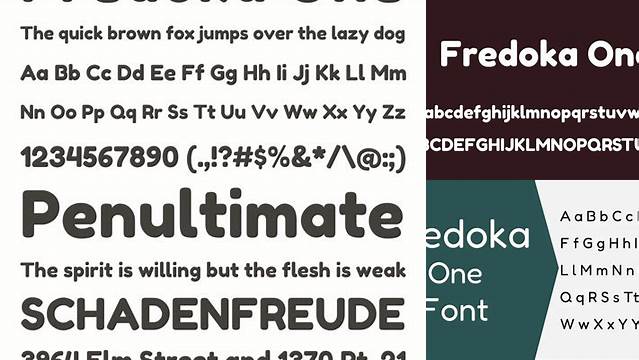
Fredoka One: Google Fonts Guide & Specimen Insights
Hey guys! Ever stumbled upon a font that just makes you smile? Well, let me introduce you to Fredoka One! This Google Font is like that super friendly neighbor who always brings sunshine to the block. In this guide, we're diving deep into everything Fredoka One – from its quirky design to how you can use it to spice up your projects. So, buckle up and let's get font-tastic!
What is Fredoka One?
So, what exactly is Fredoka One? It's a playful, rounded sans-serif font designed by Milena Brandão. Think of it as the font equivalent of a bouncy castle – fun, approachable, and full of energy. Fredoka One is part of the Google Fonts library, which means it's free to use for personal and commercial projects. How cool is that? Its bubbly appearance makes it perfect for headlines, posters, and anything that needs a touch of whimsy. Imagine using Fredoka One for a children's book, a party invitation, or even a website header. It’s versatile enough to fit a wide range of design needs, and its distinctive style ensures it stands out from the crowd. Plus, its availability on Google Fonts means it's super easy to implement on your website or in your design software. Just a few clicks, and you're ready to roll! But don't just take my word for it – try it out and see for yourself how Fredoka One can transform your projects.
Fredoka One Font Family
The Fredoka One font family is actually a bit of a solo act – it only comes in one weight. But don't let that fool you! This single weight is incredibly versatile. It's bold enough to make a statement in headlines, yet clean enough to be readable in shorter paragraphs. While it would be awesome to have different weights like Fredoka One Light or Fredoka One Bold, the existing version strikes a perfect balance. The lack of additional weights keeps things simple and focused. You don't have to spend time deciding between different options; you can just jump right in and start using it. This simplicity is part of what makes Fredoka One so appealing. It's straightforward and easy to use, making it a great choice for both beginner and experienced designers. However, if you're looking for more variety in weights, you might need to pair Fredoka One with another font that offers those options. But for many projects, the single weight of Fredoka One is more than enough to get the job done. It’s a testament to the font’s design that it can be so effective even without a full family of weights.
Fredoka One Google Fonts Specimen
Alright, let's talk about the Fredoka One Google Fonts specimen. When you head over to Google Fonts, you'll see a preview of Fredoka One in action. This specimen showcases the font's character set, including uppercase and lowercase letters, numbers, and punctuation. It also gives you a feel for how the font looks at different sizes and in different contexts. The specimen is designed to help you quickly assess whether Fredoka One is the right fit for your project. You can type in your own text to see how it looks in the font, which is super handy. Additionally, the Google Fonts specimen provides information about the font's designer, licensing, and usage. It’s a one-stop shop for everything you need to know about Fredoka One. Make sure to take a good look at the specimen before deciding to use the font. It'll give you a clear idea of its strengths and limitations, and help you make an informed decision. Plus, it’s just fun to play around with and see how your favorite words look in this playful font!
How to Use Fredoka One in Your Designs
So, you're digging Fredoka One and want to use it in your designs? Awesome! This font is super versatile, but here are a few tips to get the most out of it. Firstly, think about using Fredoka One for headings and titles. Its bold and playful nature makes it perfect for grabbing attention. However, because it's quite distinctive, it's best to use it sparingly in body text. Pair it with a more neutral sans-serif font like Open Sans or Lato for longer paragraphs to ensure readability. Secondly, consider the color palette. Fredoka One works well with bright, cheerful colors that complement its playful vibe. Think yellows, pinks, and blues. But it can also look great in more muted tones for a retro feel. Thirdly, experiment with letter spacing and line height. A little extra letter spacing can enhance its readability, while adjusting the line height can make it more comfortable to read in headings. Finally, don't be afraid to get creative! Fredoka One is all about fun, so let your imagination run wild. Use it in unexpected ways and see what you come up with. Whether you're designing a website, a poster, or a social media graphic, Fredoka One can add a touch of personality and charm.
Fredoka One and Web Design
When it comes to web design, Fredoka One can be a real game-changer. Its playful and friendly appearance can make your website more engaging and approachable. Imagine a website for a children's product, a bakery, or a creative agency – Fredoka One would be a perfect fit. But how do you actually implement it on your website? Well, since it's a Google Font, it's incredibly easy. You can either link to it directly from Google Fonts or download the font files and host them on your own server. Linking to Google Fonts is the simplest option. Just add a line of code to your website's HTML, and you're good to go. Once the font is linked, you can use it in your CSS by specifying 'Fredoka One' as the font-family. Remember to define a fallback font in case Fredoka One doesn't load properly. Something like 'sans-serif' will do the trick. Also, consider using Fredoka One for interactive elements like buttons and forms. Its distinctive style can make these elements more noticeable and user-friendly. However, be mindful of loading times. While Google Fonts are generally optimized, using too many fonts can slow down your website. Stick to a maximum of two or three fonts to keep things running smoothly. With a little creativity, Fredoka One can transform your website into a fun and inviting space.
Fredoka One and Branding
Using Fredoka One in your branding can give your brand a unique and memorable identity. Think about it: your brand's visual elements are the first things people notice. A distinctive font like Fredoka One can help you stand out from the competition. If your brand personality is playful, friendly, and approachable, Fredoka One is a perfect match. It can convey a sense of fun and creativity, making your brand more appealing to your target audience. Consider using Fredoka One in your logo, website, and marketing materials. Consistency is key when it comes to branding, so make sure to use the font consistently across all your platforms. However, don't overdo it. Using Fredoka One for every single piece of text can be overwhelming. Instead, use it strategically for headings, titles, and key phrases. Pair it with a more neutral font for body text to ensure readability. Also, think about how Fredoka One aligns with your brand's values and message. Does it accurately reflect what your brand stands for? If not, it might not be the right choice. Branding is all about creating a cohesive and authentic image, so choose a font that truly represents your brand's personality. With careful consideration, Fredoka One can become an integral part of your brand's identity.
Fredoka One Alternatives
Okay, so maybe Fredoka One isn't exactly what you're looking for. No worries! There are plenty of other fonts out there with a similar vibe. One great alternative is Luckiest Guy. It's another Google Font with a bold, hand-drawn feel. It's a bit more quirky than Fredoka One, but it shares that same sense of fun and playfulness. Another option is Baloo Bhai 2. This font has rounded terminals and a friendly appearance, making it a good substitute for Fredoka One. It's also available in multiple weights, which gives you more flexibility. If you're looking for something a bit more modern, try Montserrat. It's a clean, geometric sans-serif font that pairs well with Fredoka One. While it doesn't have the same playful vibe, it offers a similar level of readability and versatility. Another alternative is Nunito. It has rounded terminals and a friendly appearance, making it a great choice for body text. It's also available in a wide range of weights, so you can find the perfect one for your needs. Ultimately, the best alternative depends on your specific design goals. Experiment with different fonts and see what works best for you. The key is to find a font that captures the same spirit as Fredoka One while also meeting your unique requirements.
Fredoka One Pairing
Pairing fonts can be tricky, but when you get it right, the results can be stunning. When it comes to Fredoka One, the key is to find a font that complements its playful nature without overpowering it. A good starting point is to pair it with a clean, neutral sans-serif font like Open Sans. Open Sans is highly readable and versatile, making it a great choice for body text. It provides a nice contrast to Fredoka One's bold and distinctive style. Another excellent pairing is with Lato. Lato is another sans-serif font that's known for its clean lines and readability. It's a bit more modern than Open Sans, but it still works well with Fredoka One. If you're looking for something a bit more unique, try pairing Fredoka One with a serif font like Merriweather. Merriweather is a classic serif font that adds a touch of elegance to any design. It provides a nice balance to Fredoka One's playfulness, creating a sophisticated yet approachable look. Another option is to pair Fredoka One with a monospaced font like Roboto Mono. Roboto Mono is a clean, minimalist font that's perfect for code snippets and technical documentation. It creates a strong contrast with Fredoka One, making your design more visually interesting. Ultimately, the best font pairing depends on your specific design goals. Experiment with different combinations and see what works best for you. The key is to find fonts that complement each other and create a cohesive overall look.
Fredoka One in Logo Design
Using Fredoka One in your logo design can be a brilliant move, especially if your brand aims to project a friendly, approachable, and fun image. Think about brands that cater to children, offer creative services, or simply want to appear more personable – Fredoka One could be the perfect fit. Its rounded, bubbly characters have an inherent charm that can instantly make a logo more appealing. However, there are a few things to keep in mind to ensure it works effectively. Firstly, consider the overall simplicity of your logo. Fredoka One is quite distinctive, so it's best used in logos that are clean and uncluttered. Avoid adding too many other design elements that could compete with the font's personality. Secondly, think about the color palette. Fredoka One works well with bright, cheerful colors that enhance its playful vibe. But it can also look great in more muted tones for a retro feel. Experiment with different color combinations to find the perfect match for your brand. Thirdly, pay attention to the kerning and letter spacing. Fredoka One's characters are closely spaced, so you might need to adjust the kerning to improve readability, especially in smaller sizes. Finally, make sure your logo is scalable. Test it at different sizes to ensure it remains legible and visually appealing. With careful consideration, Fredoka One can be a powerful tool for creating a memorable and effective logo.
Fredoka One and Typography Hierarchy
Creating a clear and effective typography hierarchy is essential for guiding your readers through your content. Fredoka One, with its bold and distinctive personality, can play a key role in establishing this hierarchy, but it needs to be used strategically. Think of it as your headline font – the star of the show that grabs attention and sets the tone. Use it for your main headings (H1s and H2s) to create a strong visual impact. Then, introduce a secondary font for subheadings (H3s and H4s) that complements Fredoka One without competing for attention. This could be a cleaner, more neutral sans-serif font like Open Sans or Lato. For body text, opt for a highly readable font that allows for comfortable reading over extended periods. The contrast between Fredoka One in the headings and a more neutral font in the body will create a clear visual hierarchy that guides the reader's eye. Experiment with different font sizes and weights to further emphasize the hierarchy. Make sure your headings are significantly larger and bolder than your body text. Also, consider using different colors to differentiate between different levels of headings. By carefully planning your typography hierarchy, you can create a design that's both visually appealing and easy to navigate.